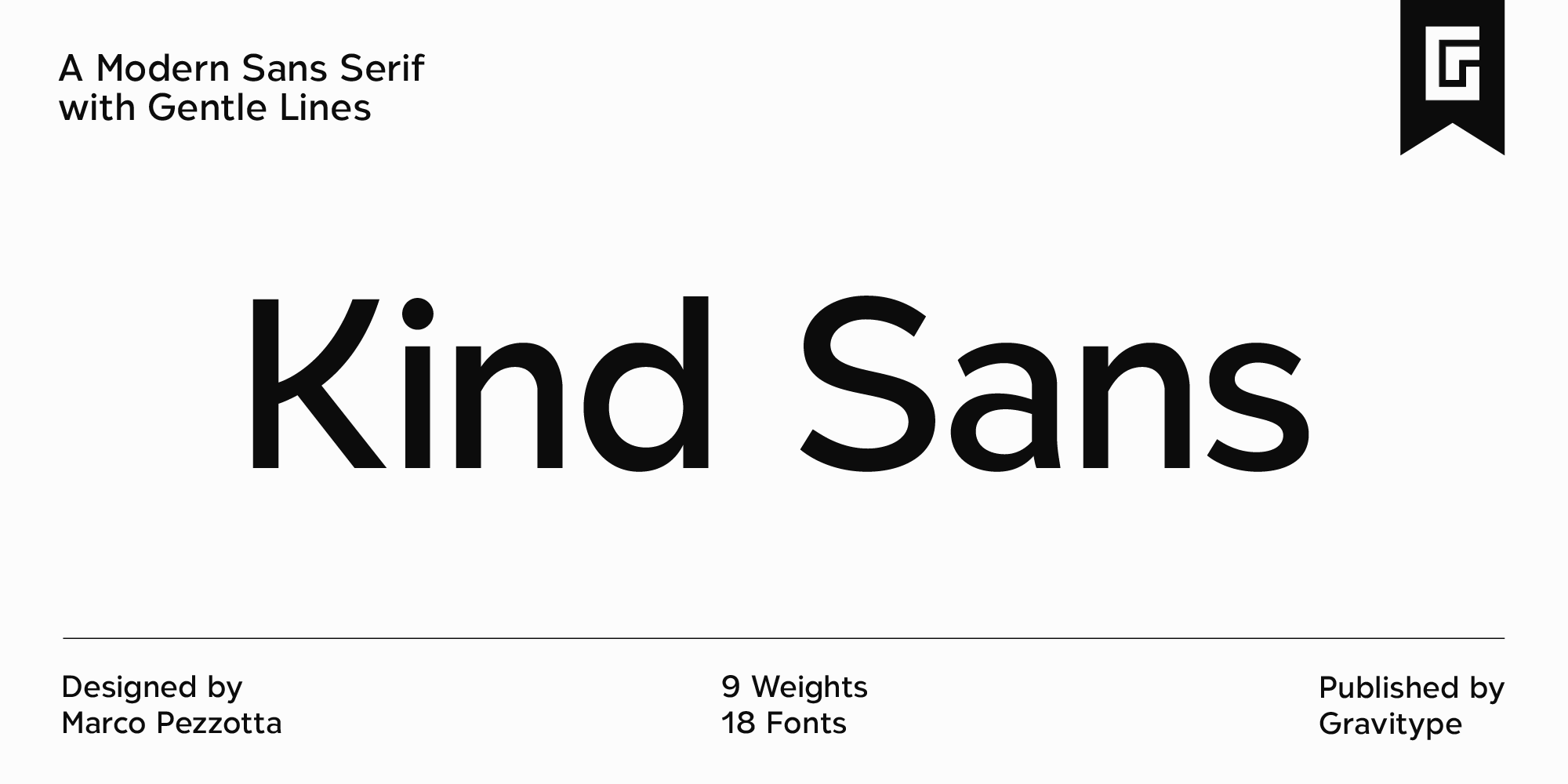
Kind Sans Font is perfect for healthcare communications, children's educational materials, non-profit organization branding, mental health awareness campaigns, community service graphics, accessible web interfaces, family-friendly app designs, gentle wellness platforms, inclusive social media content, and compassionate customer service materials.
Kind Sans Font is exciting because it embodies empathy and human warmth through its soft, approachable letterforms that communicate genuine care and understanding while delivering messages with gentle strength and inclusive accessibility that welcomes all audiences.
Kind Sans Font family includes Regular, Bold, Light, Caring, Italic, Condensed, Gentle, and Warm variations, offering designers a complete compassion toolkit to create nurturing visual communications that prioritize human connection and emotional well-being across caring applications.
Kind Sans Font represents the essence of human compassion and inclusive design principles, making it an invaluable tool for organizations dedicated to helping others and creating positive social impact through their work and communications. This nurturing typeface brings empathetic warmth to any design project, whether you're developing healthcare provider identities, creating educational resources for vulnerable populations, or designing community outreach materials. The thoughtfully softened character design of Kind Sans Font Free Download ensures maximum approachability while maintaining excellent readability across both sensitive print applications and digital platforms serving diverse communities with varying accessibility needs and emotional considerations.
Healthcare industry professionals consistently choose Kind Sans Font for medical practices, mental health services, and patient advocacy organizations because of its ability to communicate care, trustworthiness, and understanding of human vulnerability. The font's gentle appearance makes it particularly effective for reducing anxiety and creating healing environments that feel safe and welcoming.
Kind Sans Font excels in educational and social service environments where emotional safety and inclusive communication are fundamental requirements. Schools serving special needs students, community centers, and crisis support organizations rely on this font to create materials that feel genuinely supportive and accessible to all community members.
The non-profit and social services sectors have embraced Kind Sans Font for charitable organizations, volunteer programs, and community support initiatives. Its compassionate visual character helps organizations create communications that inspire trust and encourage participation in positive social change, appealing to individuals seeking meaningful ways to contribute to their communities and help others.